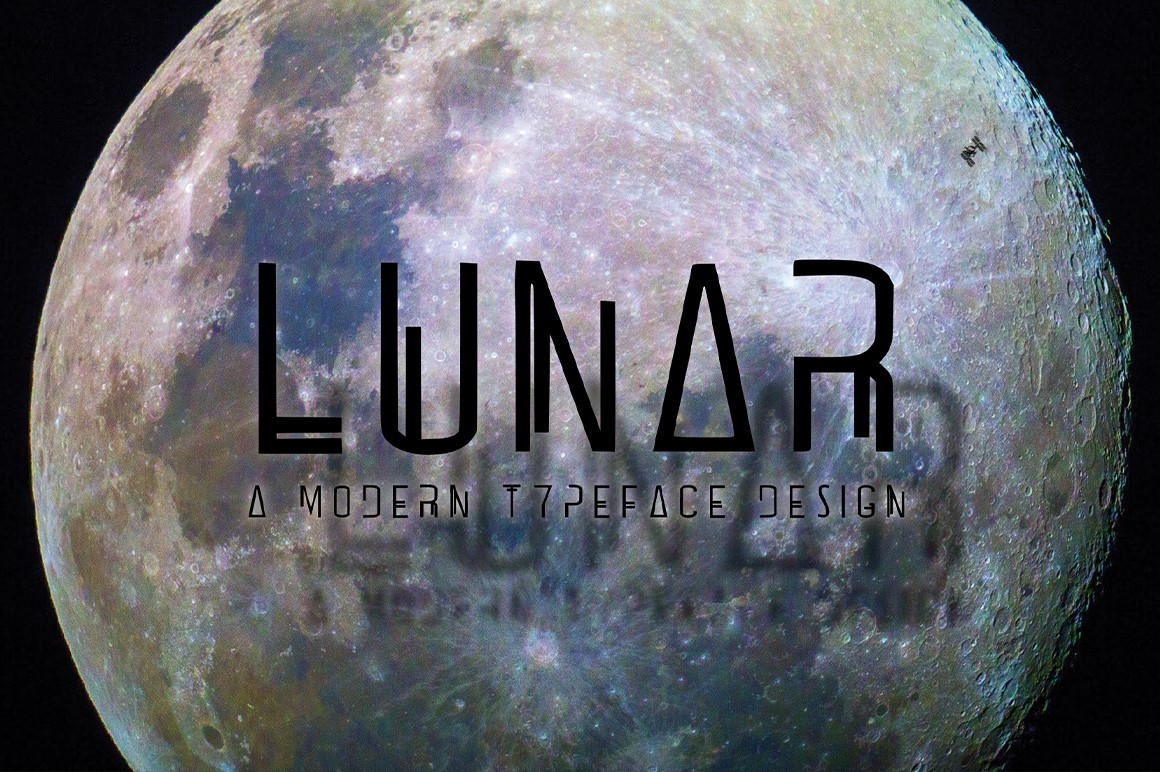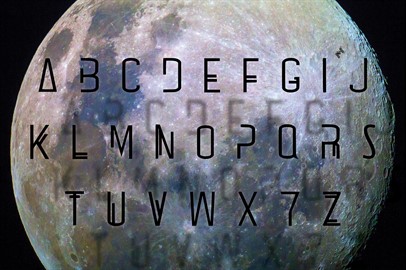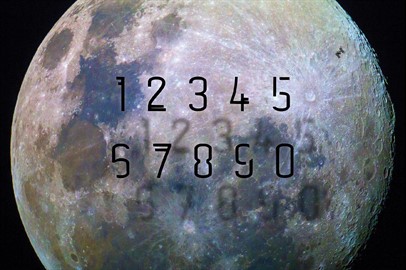
LUNAR - A Futuristic Typeface
A stylish yet elegant font. Lunar is a futuristic typeface with a style that makes it perfect for use in your design projects.